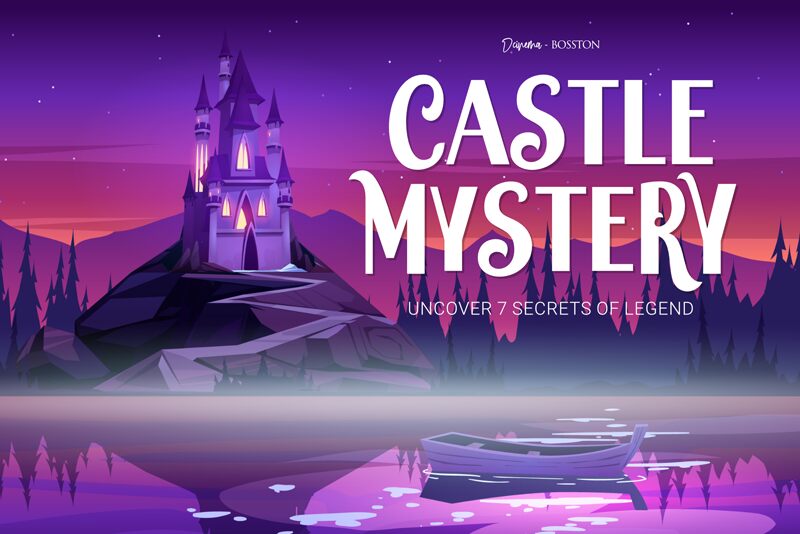
Watched
Watched, a delightful semi-bold and condensed font created by DumadiStyle, is perfect for grabbing attention and adding a touch of whimsy to any design project. With its cute display style, Watched is ideal for use in children's books, playful branding campaigns, social media graphics, and even packaging design. Its condensed width allows for maximum impact in minimal space - making it an excellent choice for creating bold headlines or eye-catching logos. This versatile font is sure to bring a smile to anyone's face and inject some fun into your next creative endeavor.